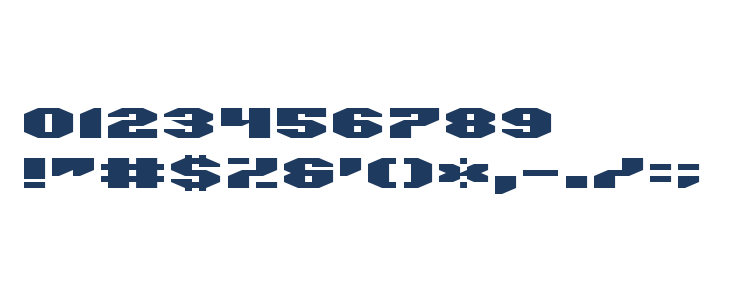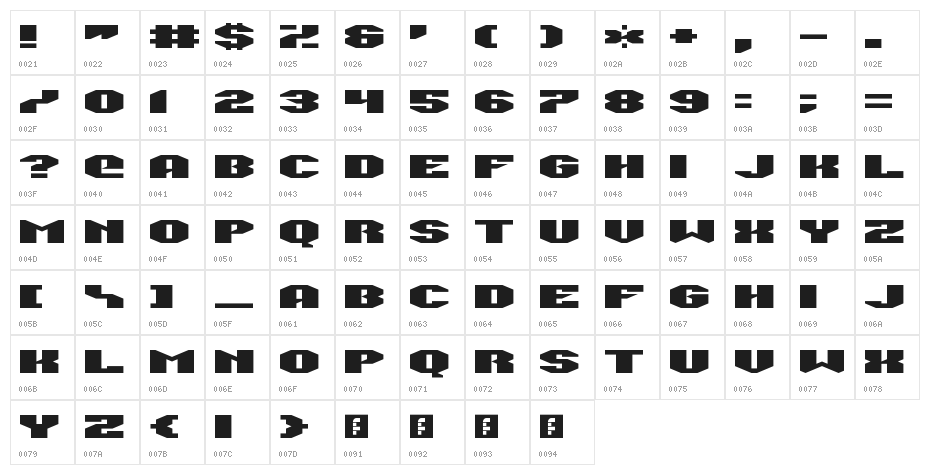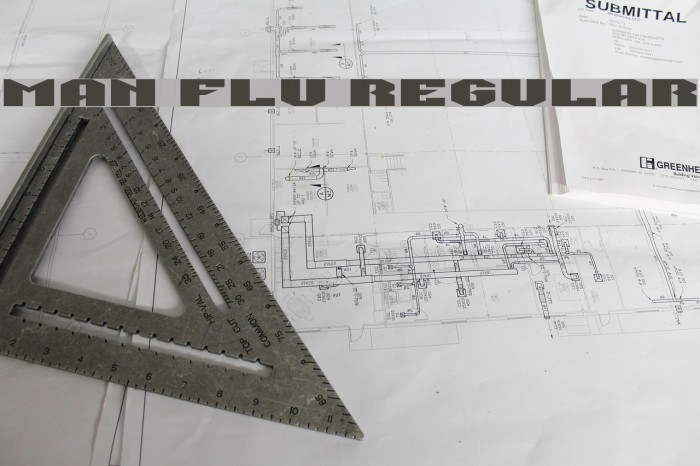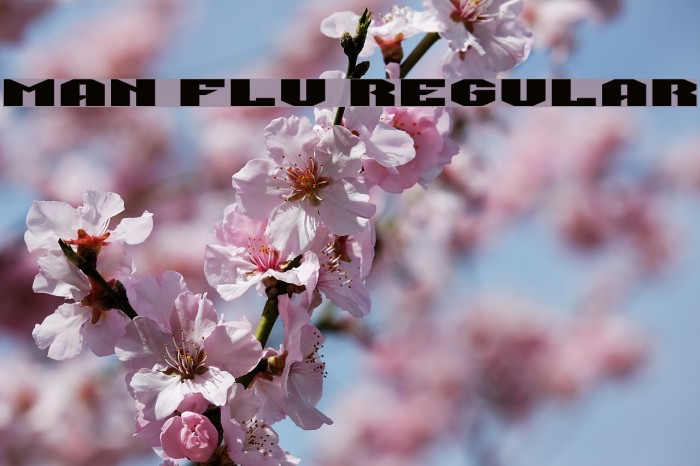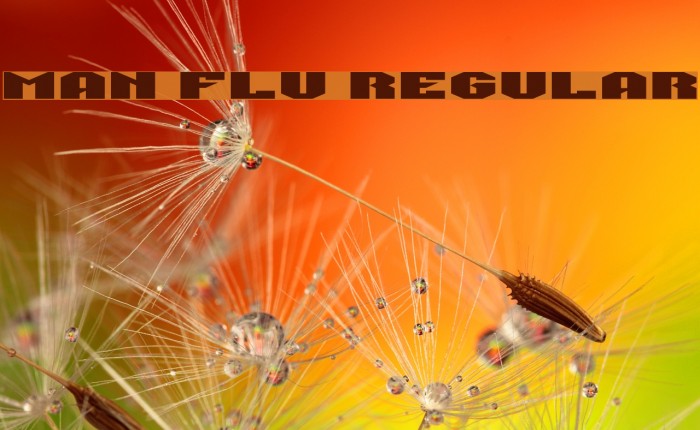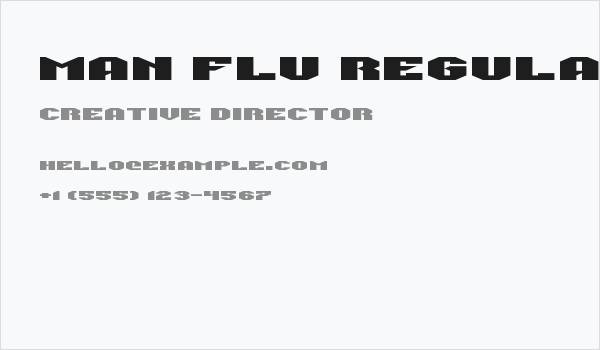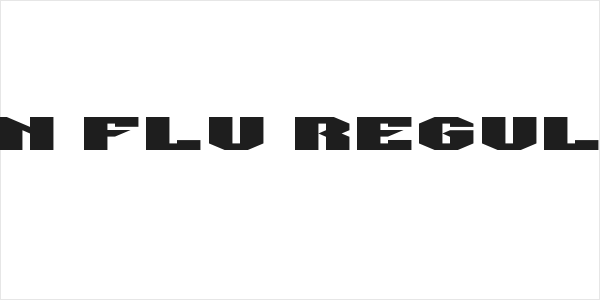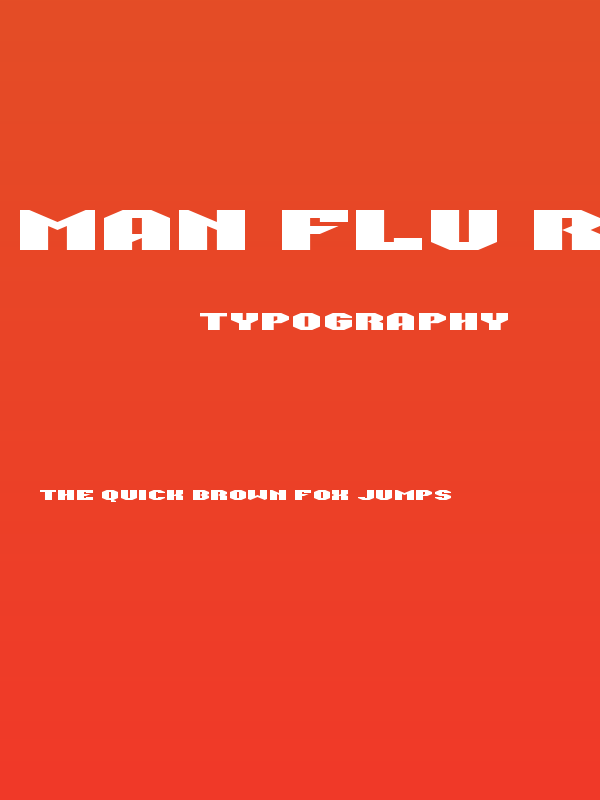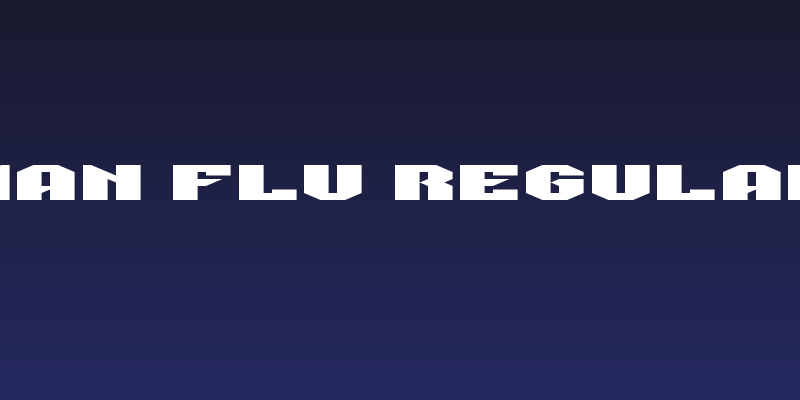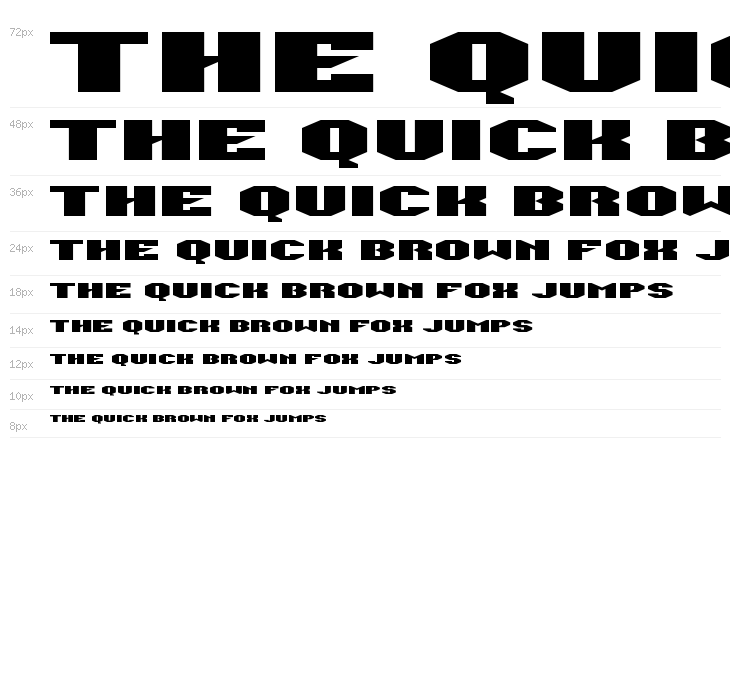
Man Flu Regular Font
Man Flu Regular Description
This font features a bold and geometric design with a strong, impactful presence. The characters are constructed with sharp angles and a blocky appearance, giving it a modern and industrial feel. The uppercase and lowercase letters maintain a consistent style, with the uppercase being slightly more pronounced. The numbers and special characters follow the same design principles, ensuring uniformity across all glyphs. This font is ideal for creating attention-grabbing headlines or logos that require a robust and assertive look.